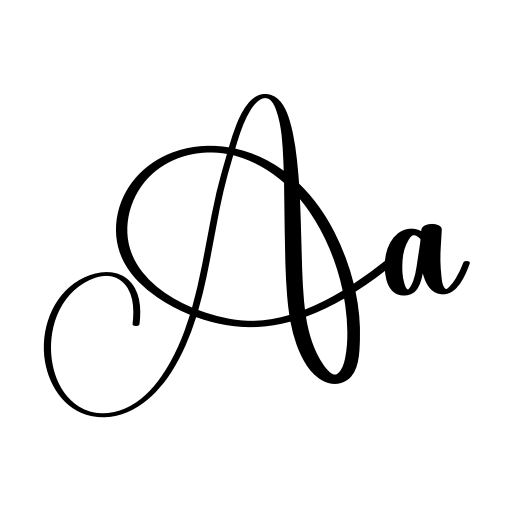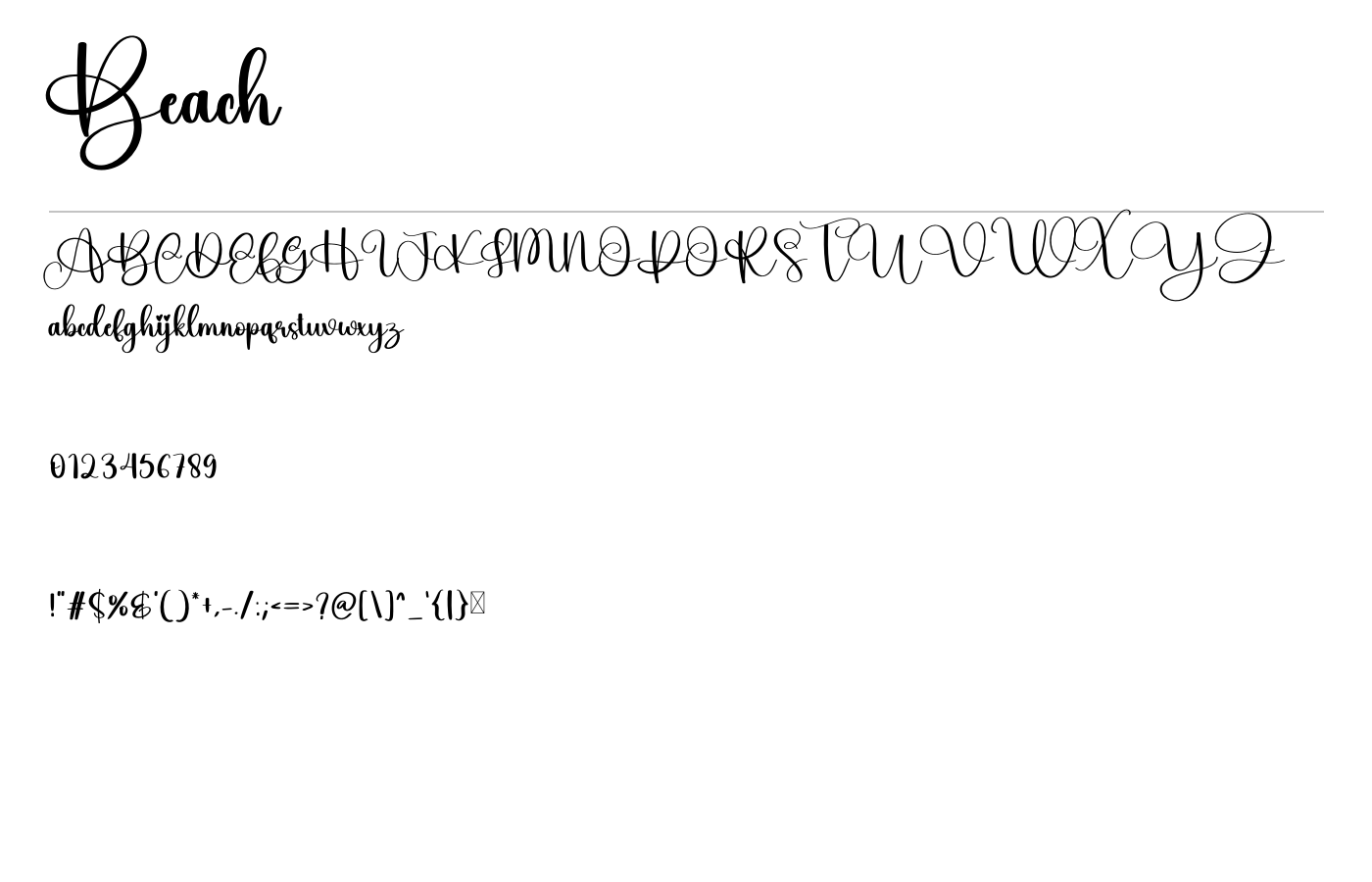
Beach Font is an elegant, flowing script typeface with graceful, high-contrast strokes and delicate swashes that give it a charming, hand-lettered feel. Its ornate uppercase letters combined with more readable lowercase forms make it perfect for stylish branding, wedding invitations, and feminine editorial designs that want to convey sophistication and warmth. This font works best in large display settings where its decorative details can shine without sacrificing legibility.
Beach Font